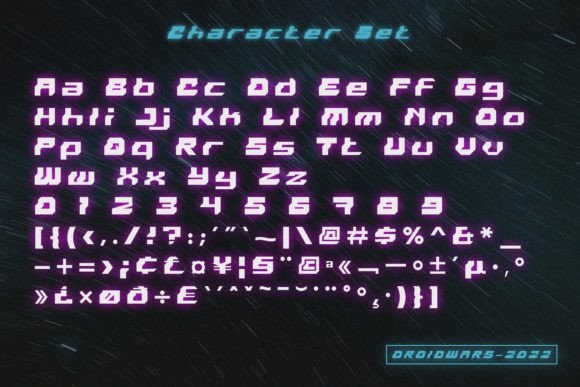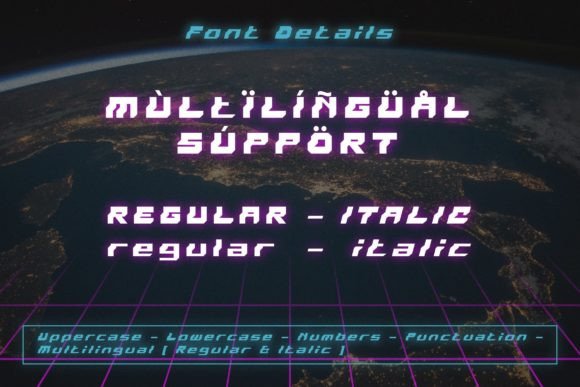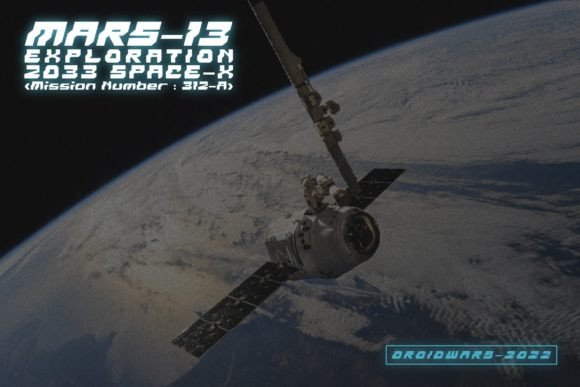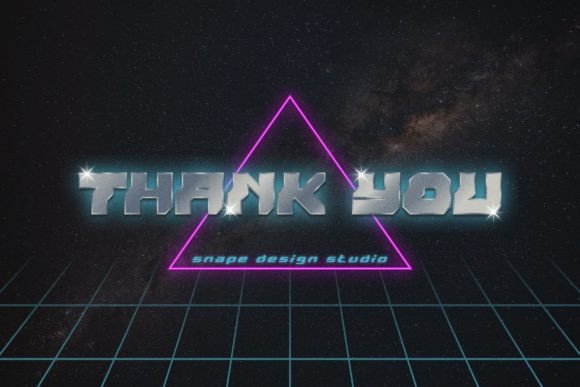
Droid Wars Font: Elevate Your Designs with a Futuristic Twist
In the realm of digital design, fonts play a pivotal role in conveying the essence and aesthetic of a project. Whether you’re crafting a logo, designing a poster, or creating engaging content for a movie or video game, the right font can make all the difference. This is where Droid Wars Font comes into play—a futuristic font designed to add a sleek, high-tech feel to your creations. In this article, we’ll explore the features of Droid Wars Font, its applications, and why it has become a go-to choice for designers and crafters alike.
The Essence of Droid Wars Font
Droid Wars Font is characterized by its futuristic and bold appearance, making it an ideal choice for themes related to technology, digital media, and space galaxies. Its design is inspired by the aesthetics of sci-fi movies and games, giving it a unique and captivating look. The font’s sleek lines and futuristic vibe make it stand out, allowing designers to add a touch of modernity and sophistication to their projects.
One of the key advantages of Droid Wars Font is its versatility. While it’s specifically designed for technology, digital, and space galaxy themes, its applications extend far beyond these areas. Here are some of the many projects where Droid Wars Font can make a significant impact:
- Movies and Documentaries: Add a professional and cinematic touch to your movie or documentary titles with Droid Wars Font.
- Films: Enhance your film posters or opening credits with a font that screams futuristic and high-tech.
- Logos: Create memorable and impactful logos for tech startups, digital agencies, or any business looking to convey innovation and forward-thinking.
- Posters: Whether it’s for an event, a product launch, or a sci-fi movie night, Droid Wars Font can make your posters stand out.
- Games: Level up your game design with titles and headings that resonate with the futuristic and digital world of gaming.
- Book Covers: Give your sci-fi or technology-themed books a cover that captures attention and conveys the book’s essence.
- Headlines and Titles: Use Droid Wars Font to create compelling headlines and titles for your blog posts, articles, or marketing materials.
Why Choose Droid Wars Font?
With so many fonts available, what makes Droid Wars Font a preferred choice for designers and crafters? Here are a few reasons:
- Unique Aesthetic: Droid Wars Font offers a unique aesthetic that’s hard to find elsewhere. Its futuristic design can instantly elevate the look of your project.
- Readability: Despite its bold and futuristic look, Droid Wars Font maintains a high level of readability, making it suitable for both titles and body text.
- Customization: The font comes with a range of customization options, allowing you to adjust it according to your project’s needs.